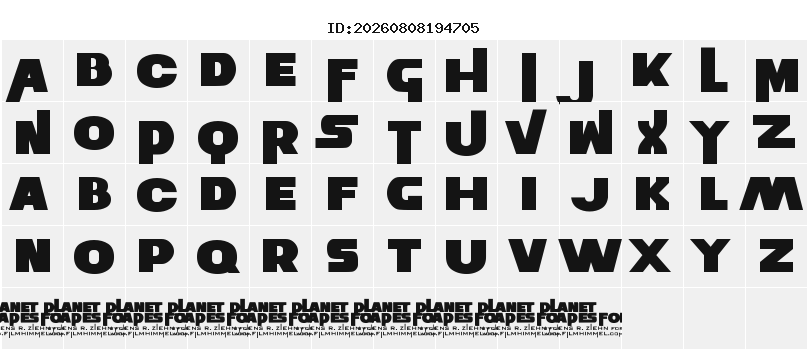
Planet of the Apes Preview
• Font Name: Planet of the Apes
• Full Font Name: Planet of the Apes
About Planet of the Apes.ttf
Planet of the Apes.ttf is a modern, elegant sans-serif font designed for ultimate readability and visual harmony. Perfect for branding, headlines, web design, and print materials.